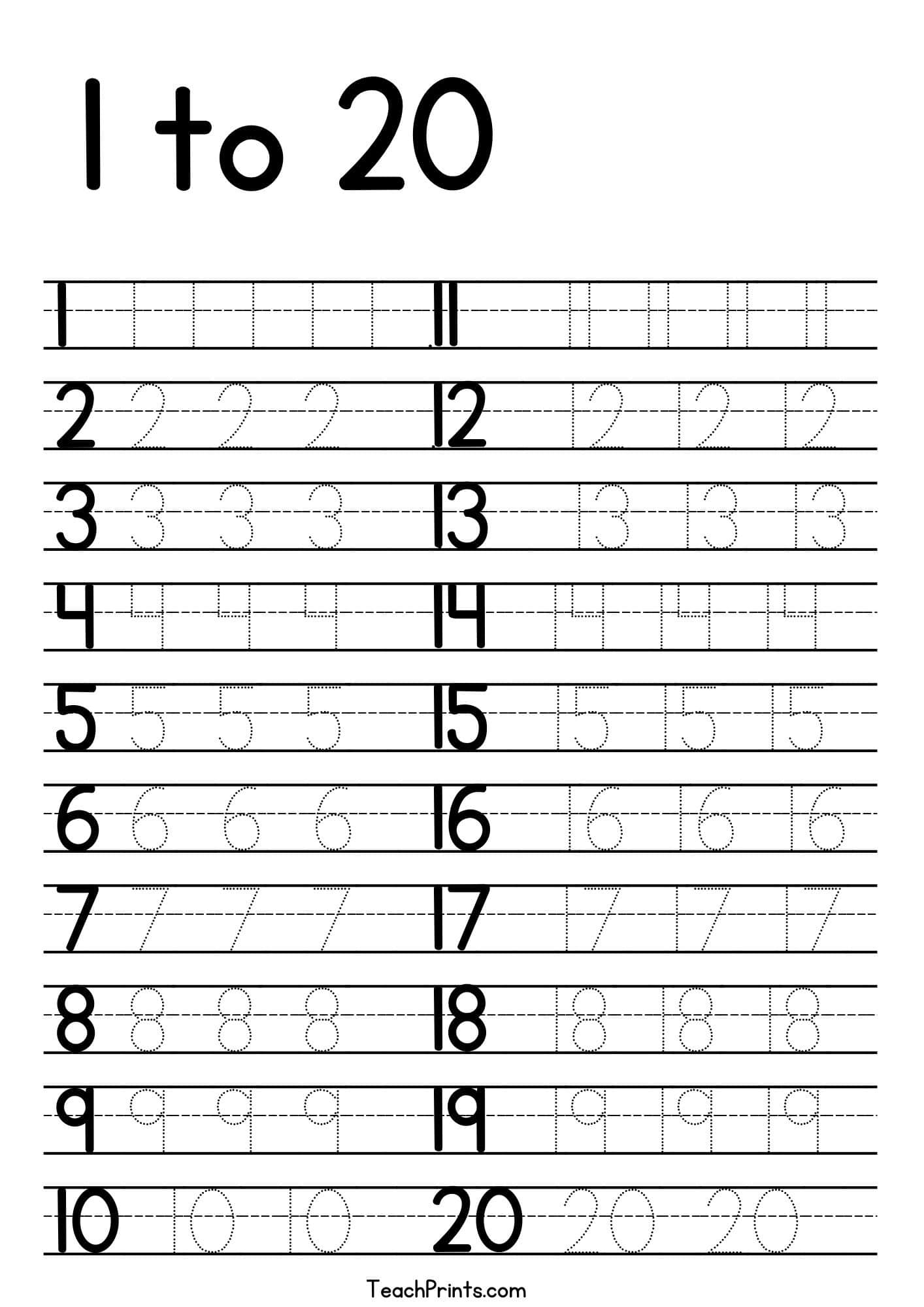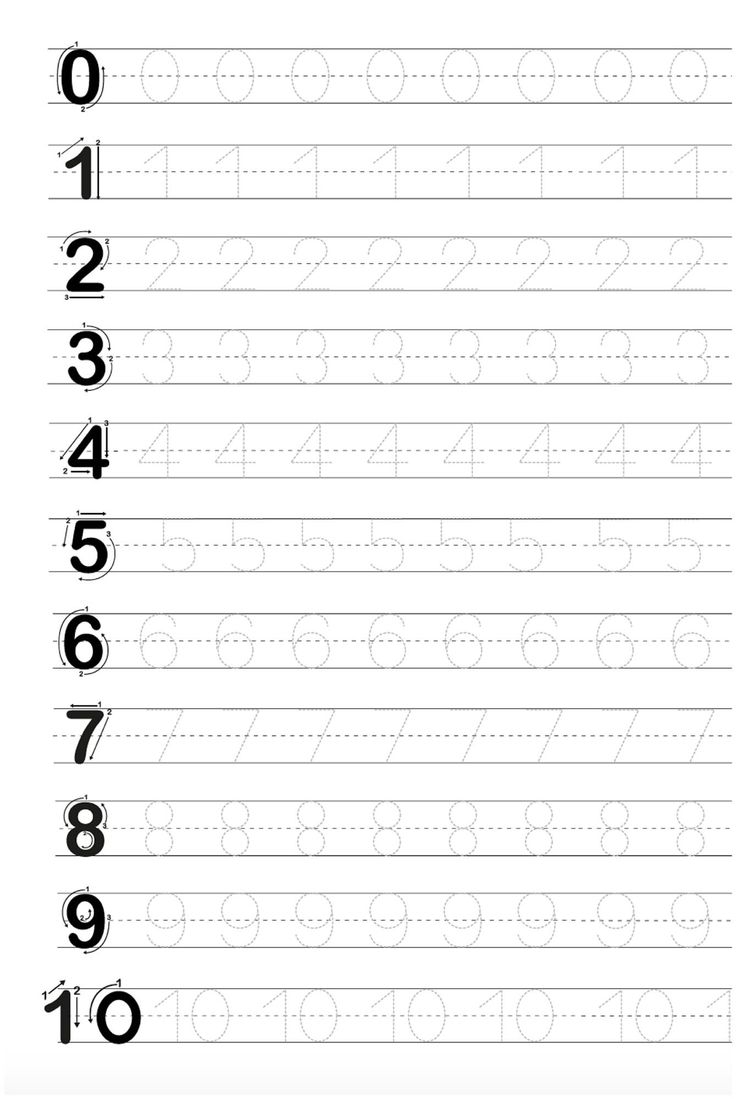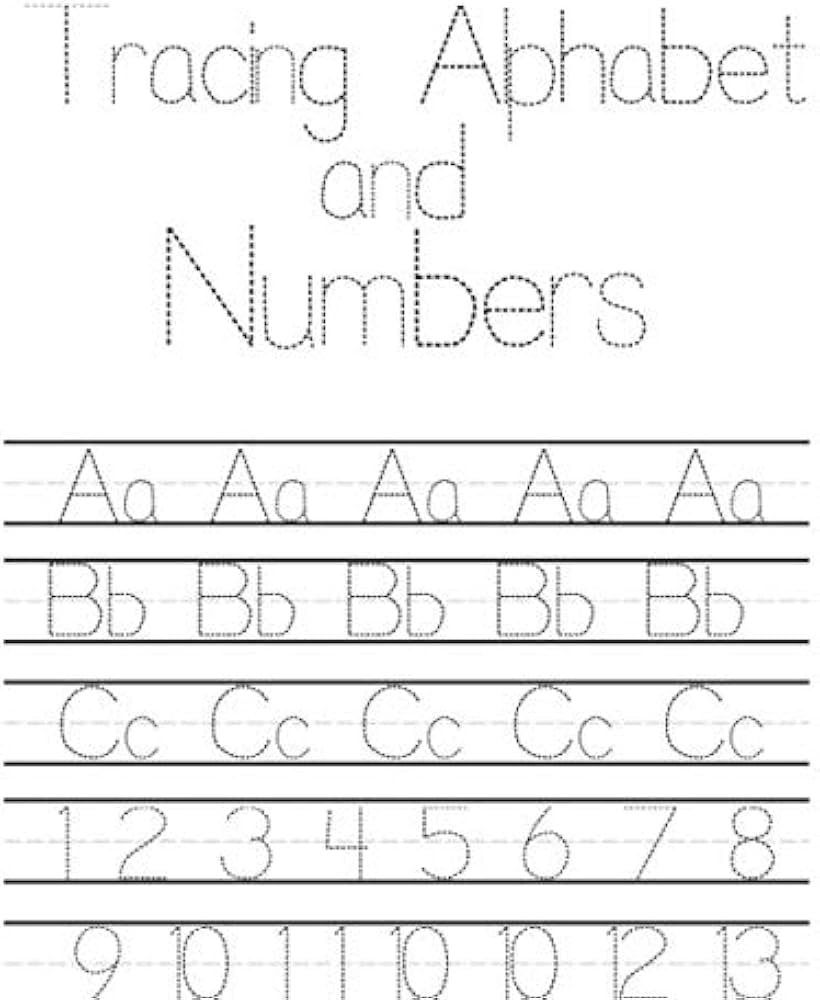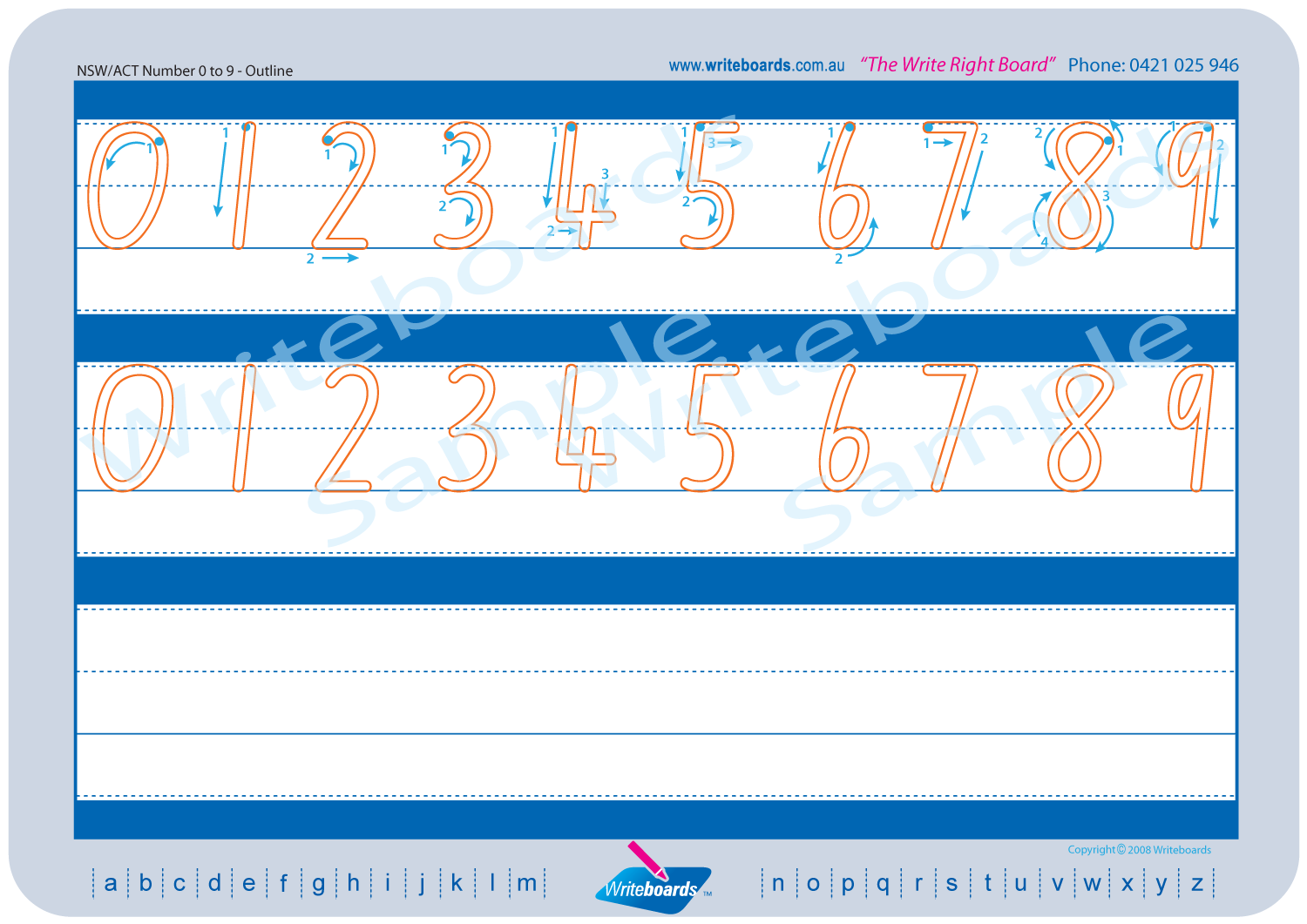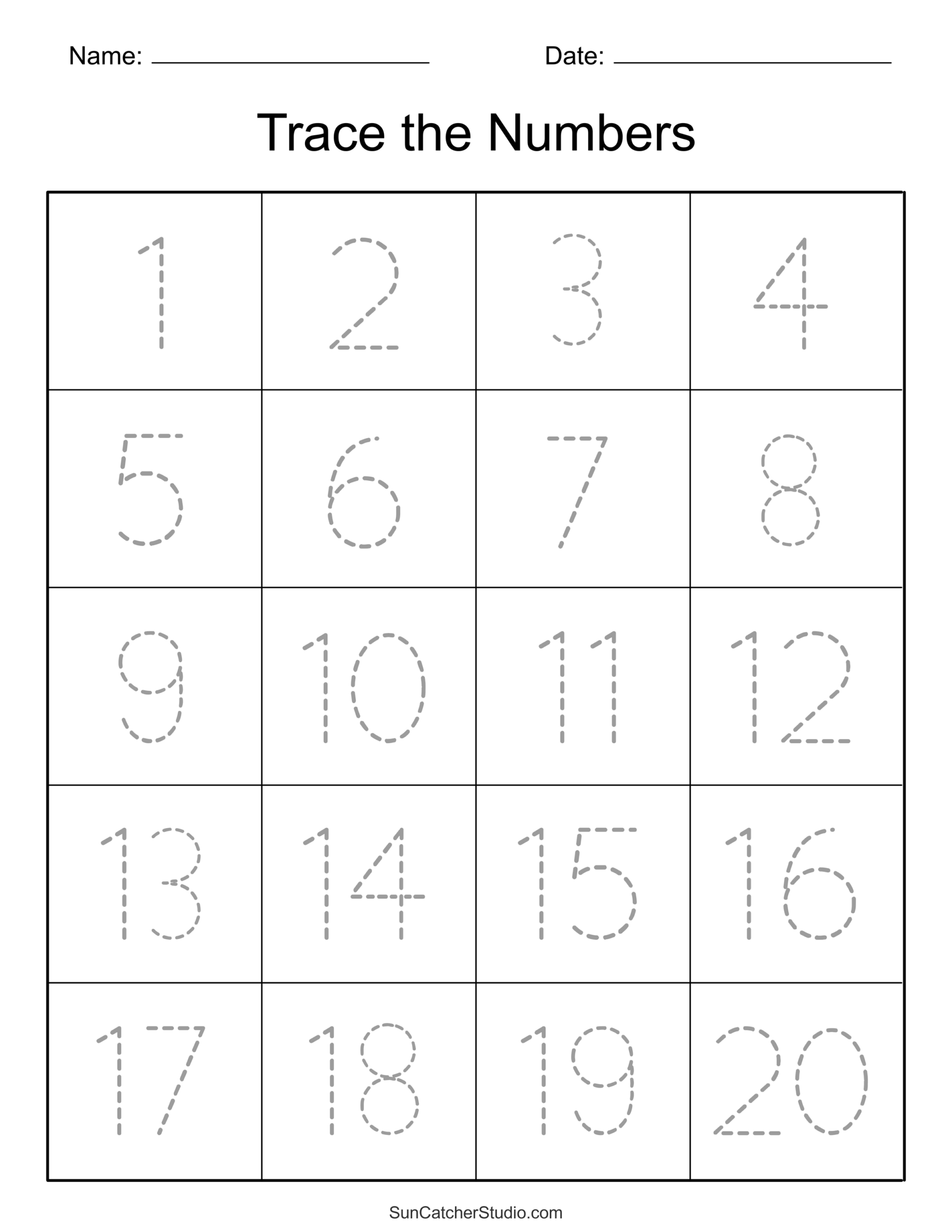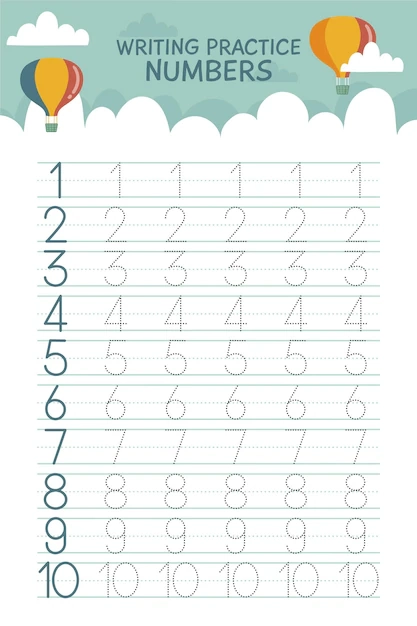
Learning to write numbers is an essential skill for young children. Using a number tracing font can make this process enjoyable and effective. Kids often respond better to playful and engaging methods when learning new concepts.
A number tracing font is designed specifically for young learners. These fonts typically feature dotted lines that guide children in forming numbers correctly. This visual aid helps reinforce proper writing techniques.
Using a number tracing font can also enhance fine motor skills. As children trace the numbers, they develop hand-eye coordination, which is crucial for their overall writing development. This skill will benefit them in various academic areas.
Incorporating a number tracing font into your child’s learning routine can lead to significant improvements. With consistent practice, children will gain confidence in their writing abilities and develop a strong foundation for future math skills.
Encouraging your child to use a number tracing font can make learning fun and effective. By providing the right tools, you help them build essential skills that will serve them well throughout their educational journey.